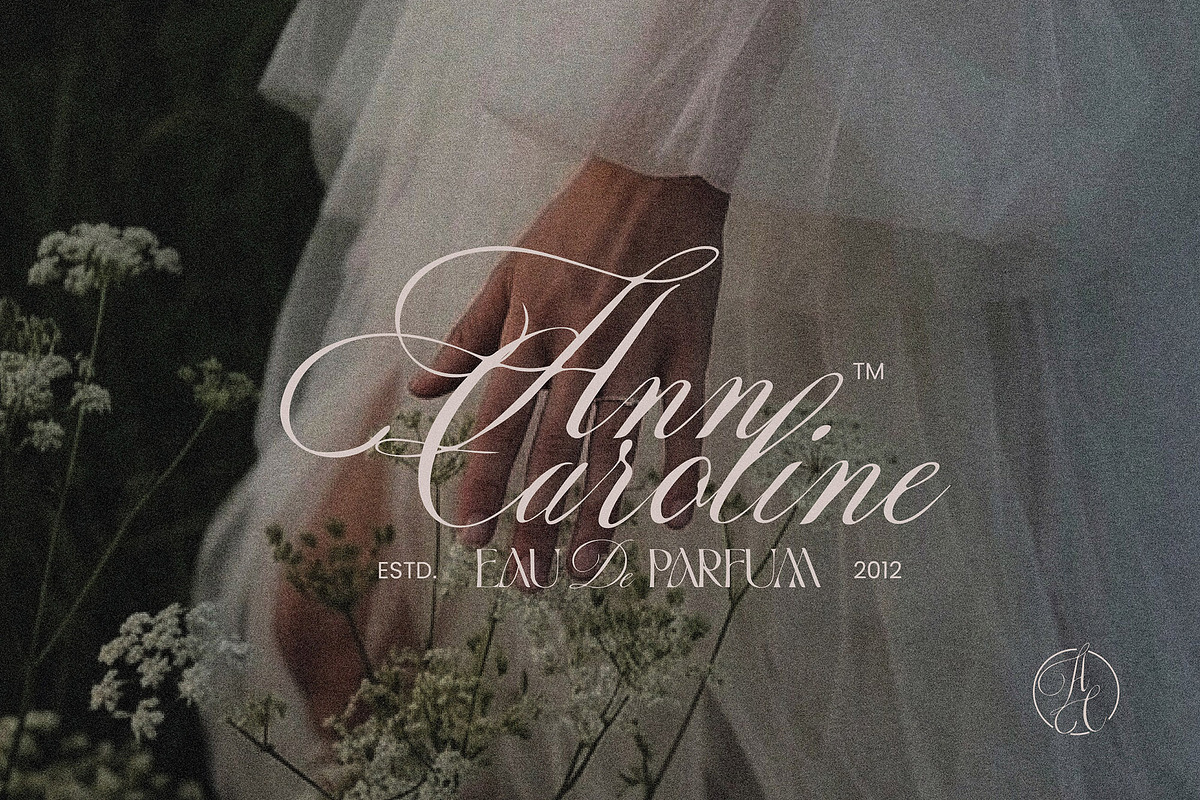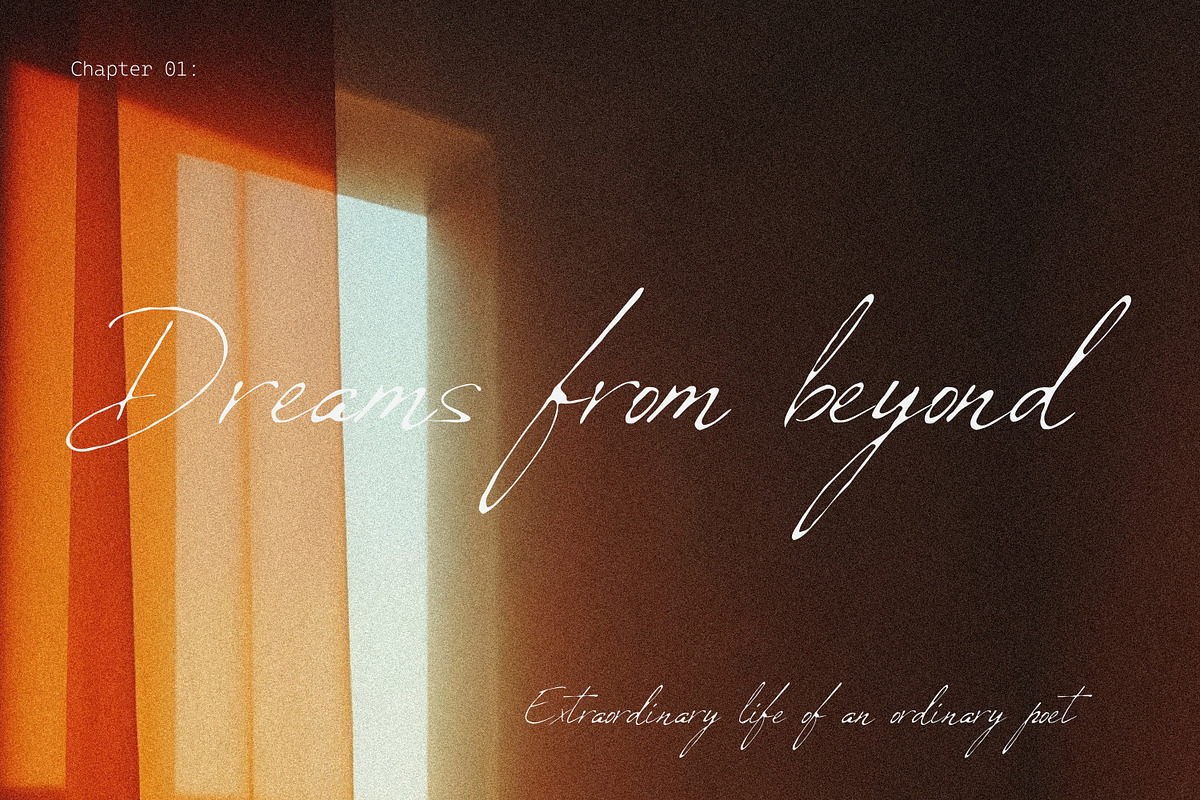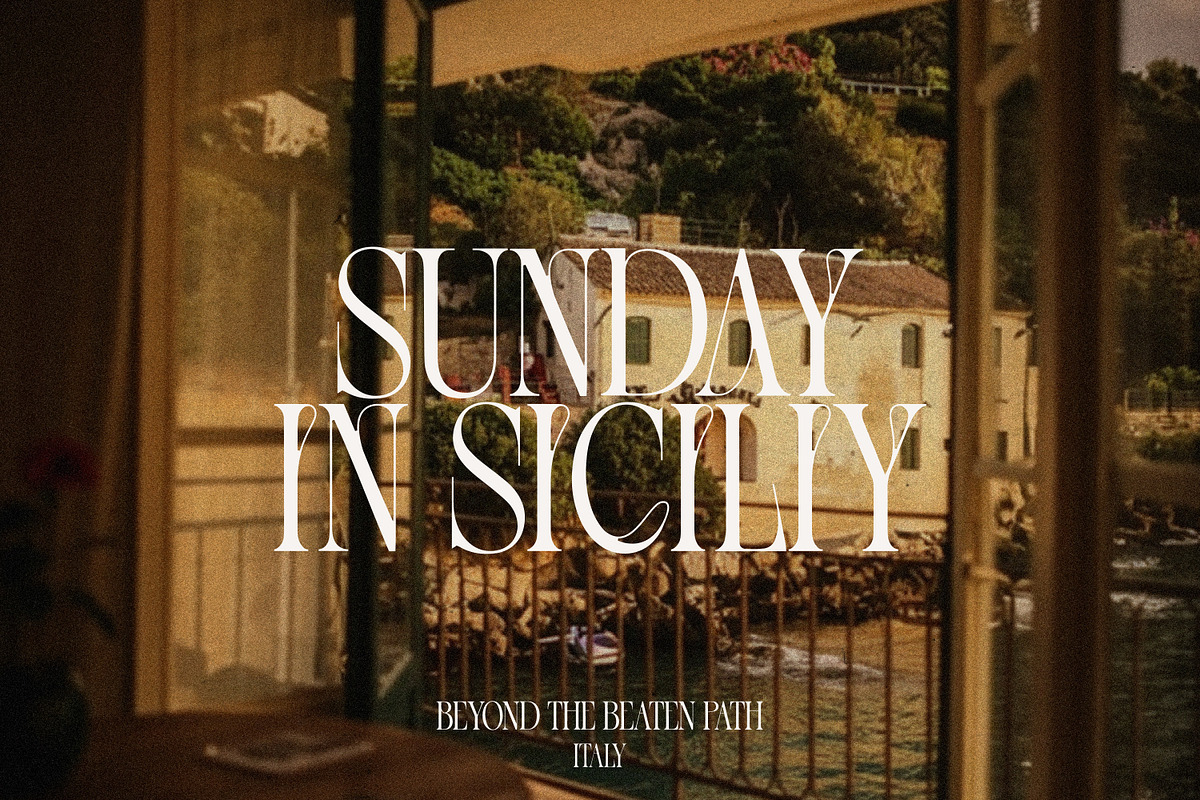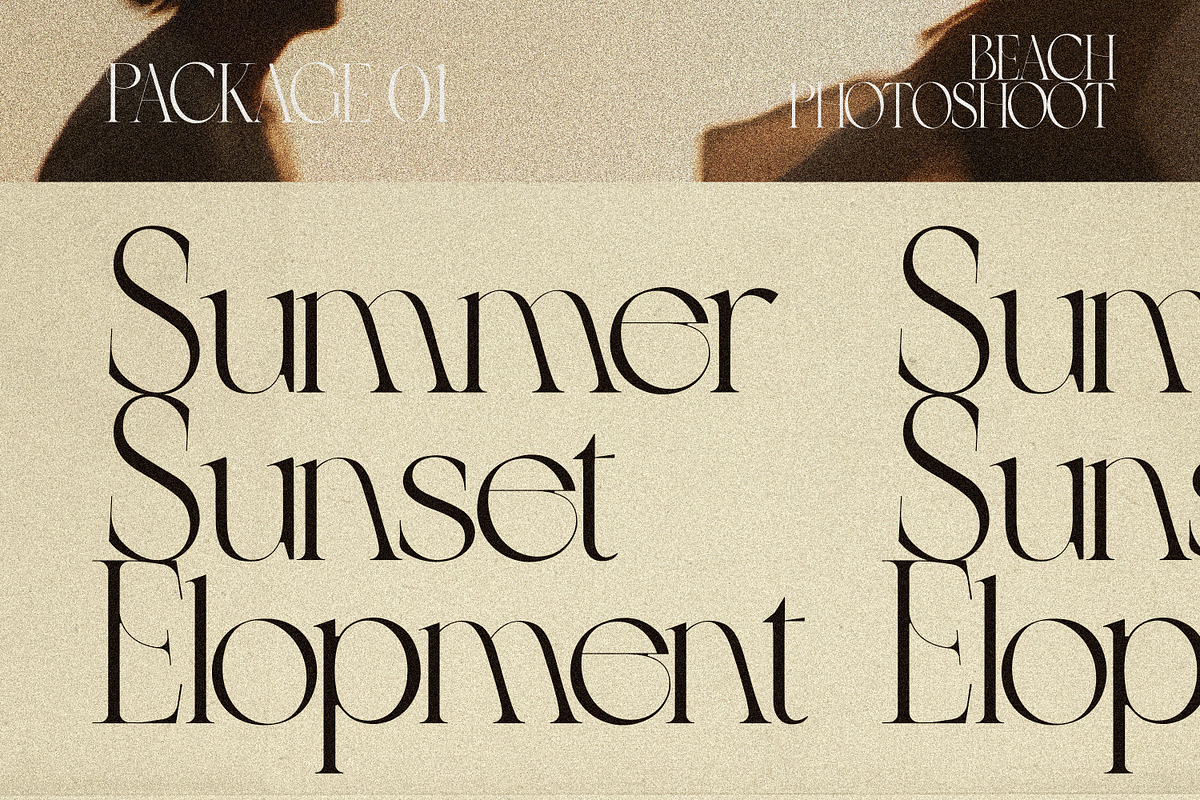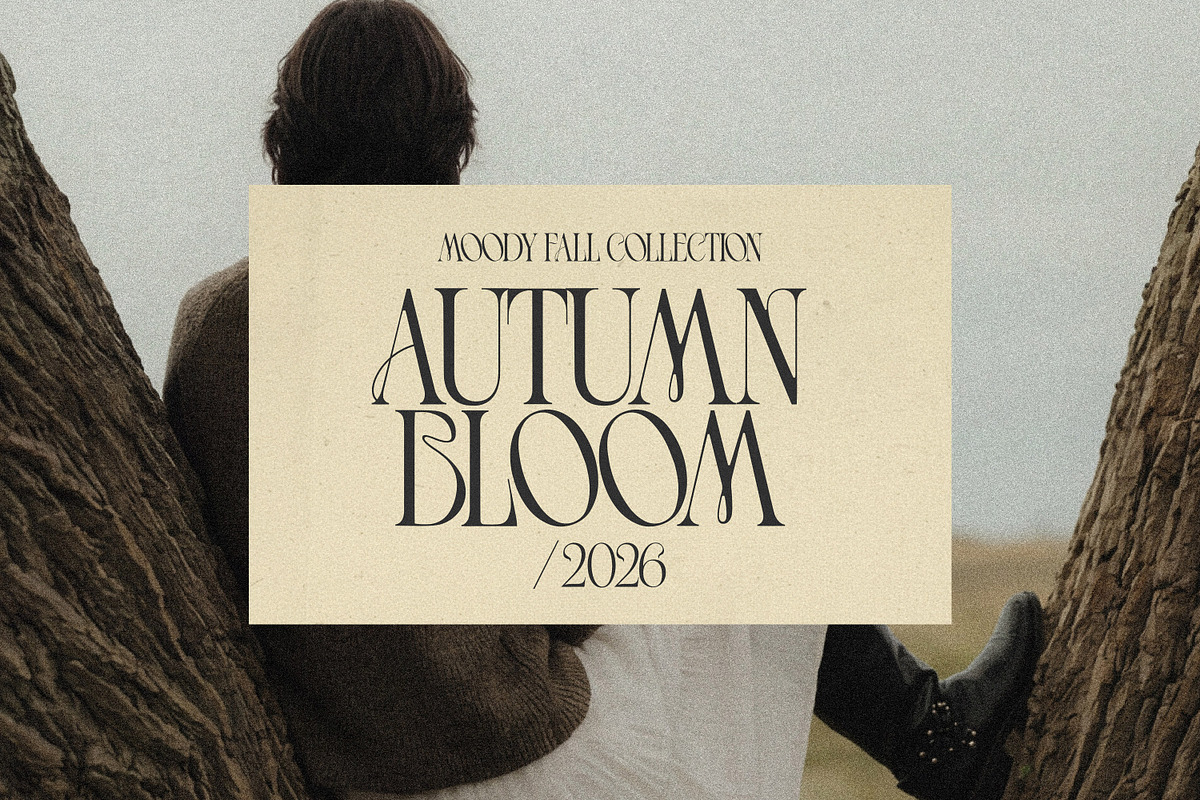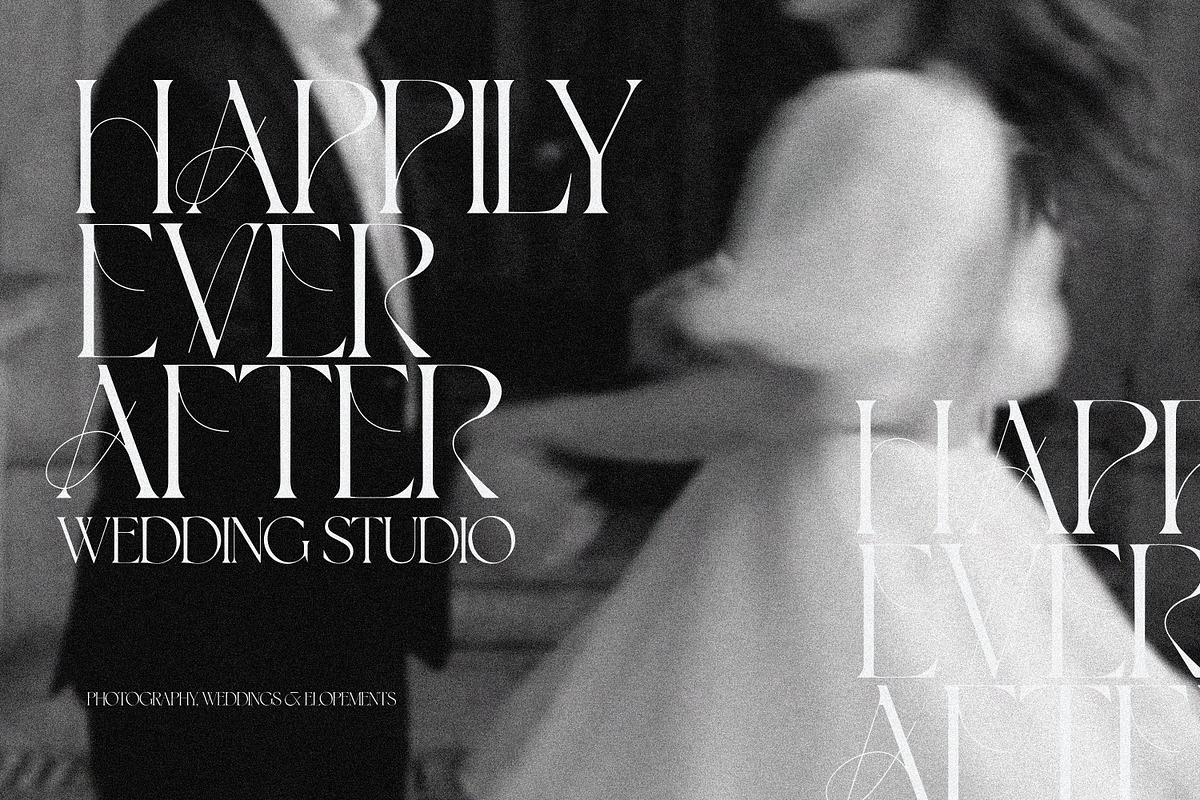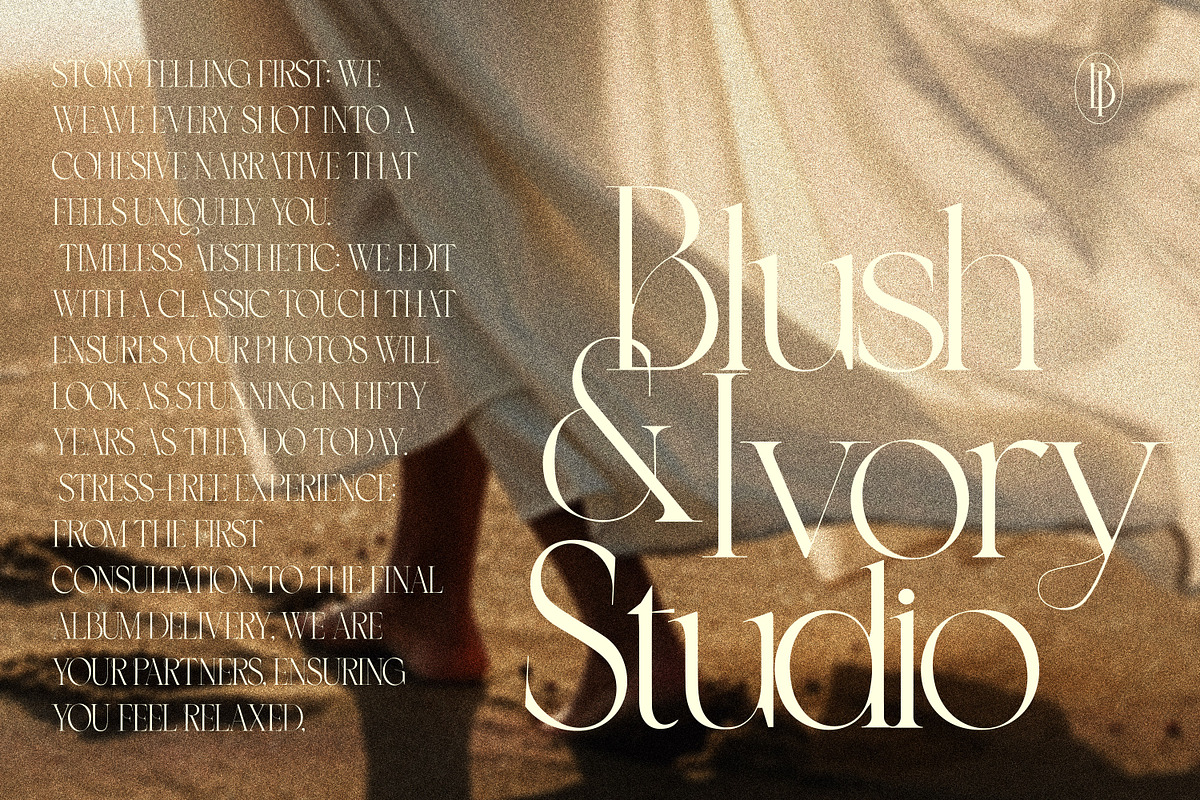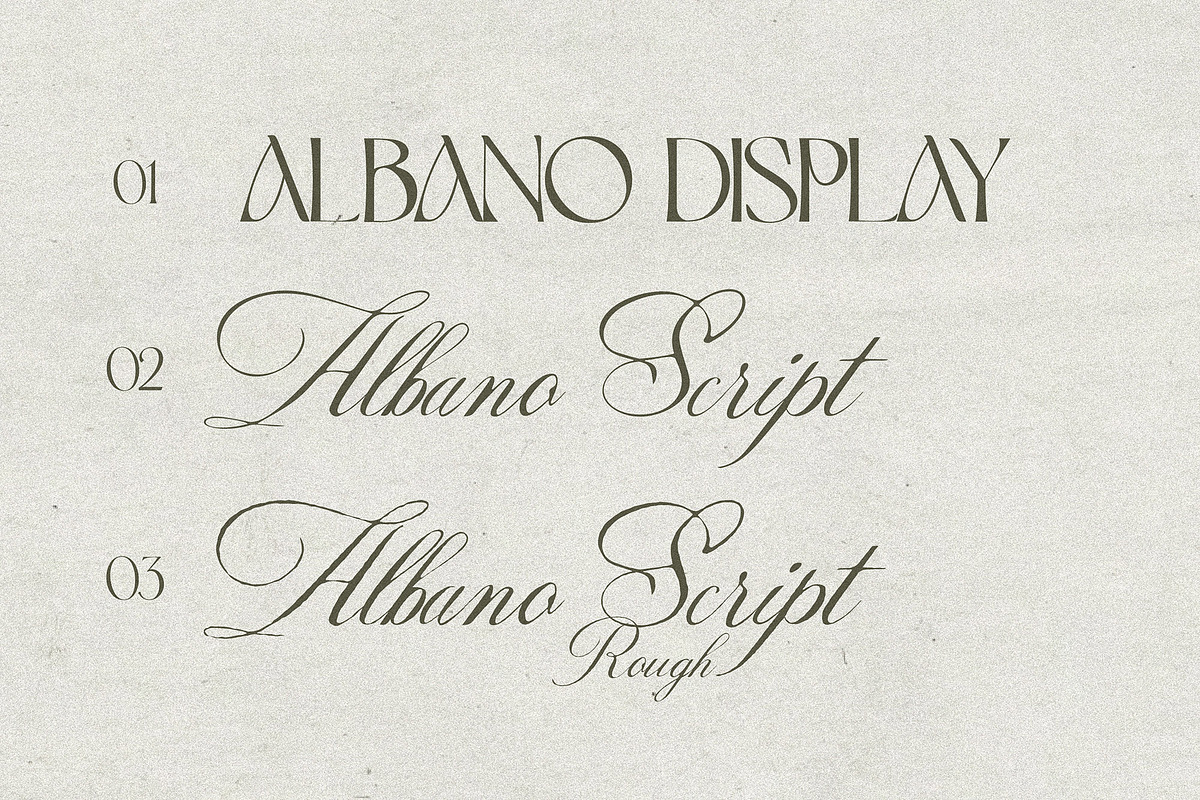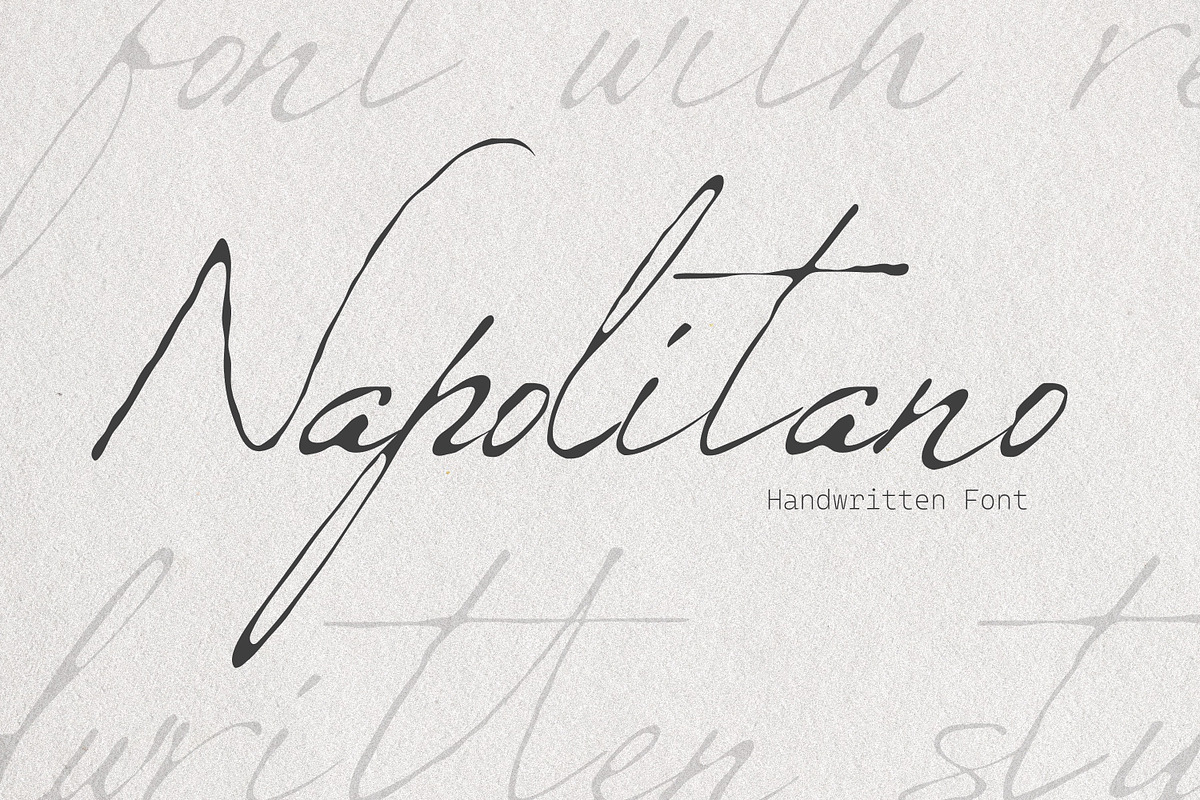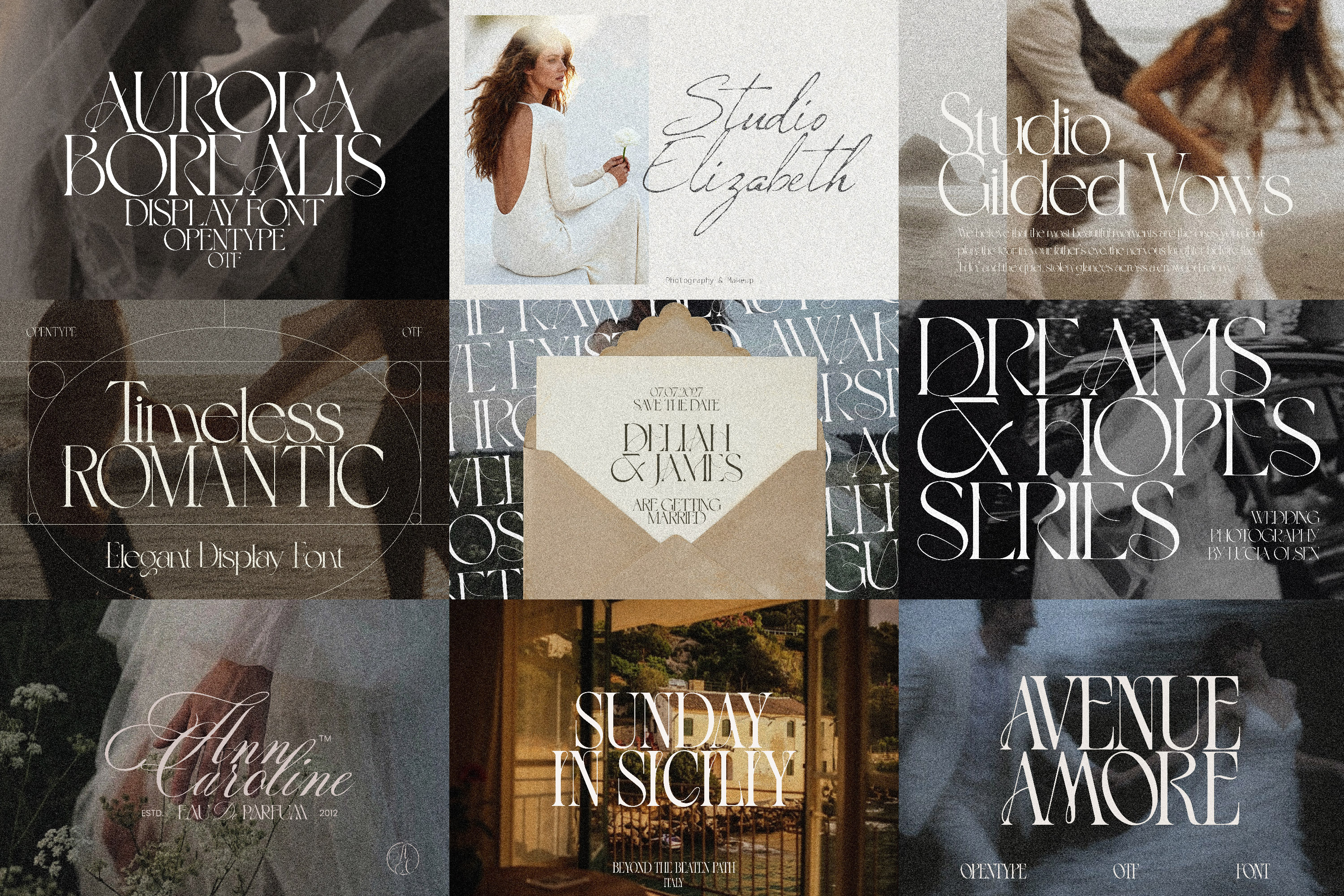
Luxury Wedding Font Bundle
✅Elevate your designs with The Timeless Romantic Wedding Font Bundle, a curated collection of high-end serif and script fonts designed for the modern romantic.
This bundle captures the essence of editorial luxury and effortless elegance. Featuring high-contrast serifs with stunning custom ligatures and fluid, hand-drawn scripts, this collection is perfect for designers and brides-to-be who want a "Vogue-style" aesthetic for their special day or brand.
Whether you are designing a high-end wedding suite, a luxury fashion brand, or chic social media content, these fonts offer the versatility and "wow factor" needed to stand out.
✅This Font Is Perfect For:
- Wedding Stationery — invitations, save-the-dates, menus, place cards
- Branding & Logos — luxury brands, beauty lines, fashion labels, jewelry businesses
- Editorial & Magazine Layouts — headlines, pull quotes, cover titles
- Social Media Graphics — Instagram posts, Pinterest pins, story templates
- Packaging Design — perfume, cosmetics, wine labels, candle branding
- Book Covers & Titles — romance, poetry, literary fiction
- Website Headers — portfolio sites, luxury e-commerce, hospitality brand